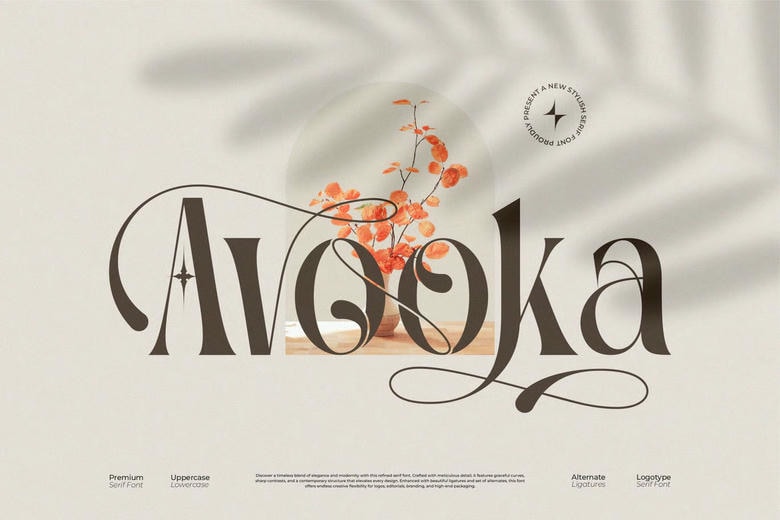
Avooka Font
Avooka Serif is a modern typeface of a font used in all styles of branding and logos. It is a beautiful character font of modern Serifs. Its usage is recommended to invitation card designs, cool logos, movie titles, movie names, business cards, book titles, brand names and numerous other designs.
Smooth serif typeface The Avooka Serif font is elegant and of the moment. The elegant ligatures in the font ensure that it is an ideal font to use in any venture.
Avooka Serif Font